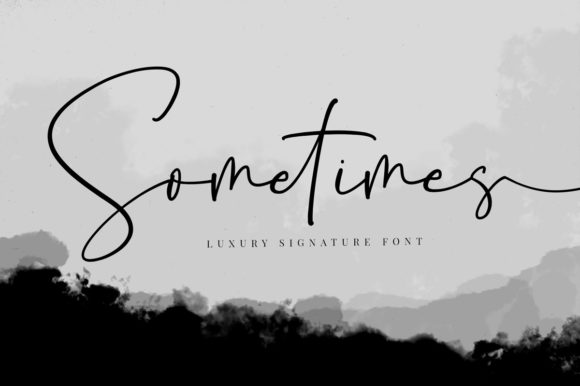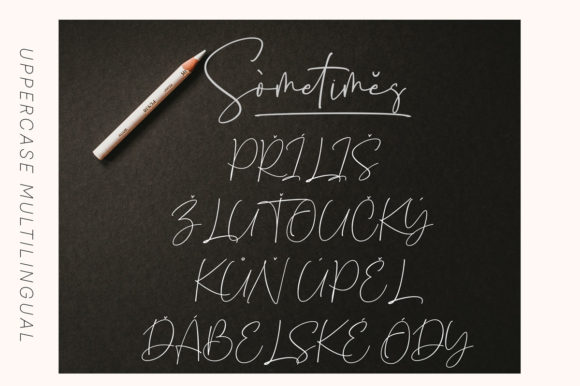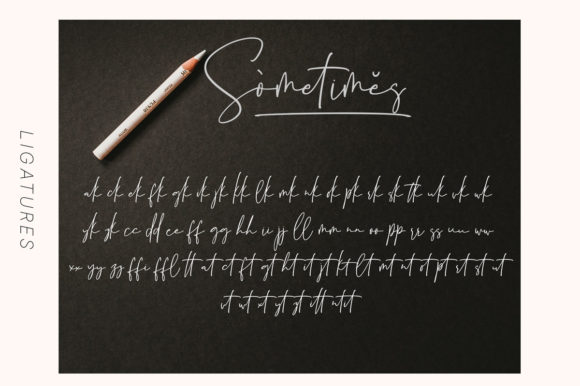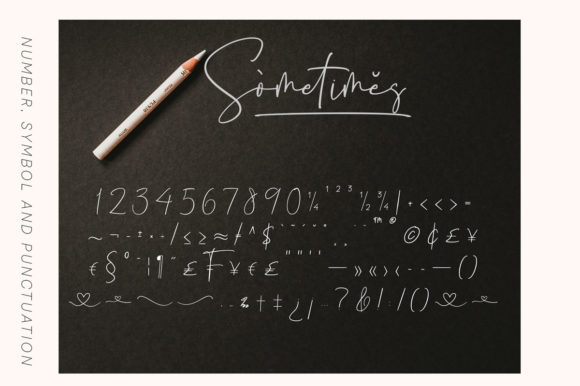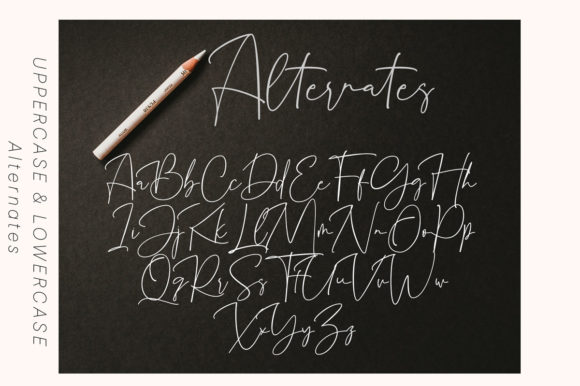
About Sometimes Font
Sometimes is a fashionable and delicate script font. It has a clean, thin and smooth vibe and it will be a hit for any design that you want to add it to. This font is PUA encoded which means you can access all of the glyphs and swashes with ease!